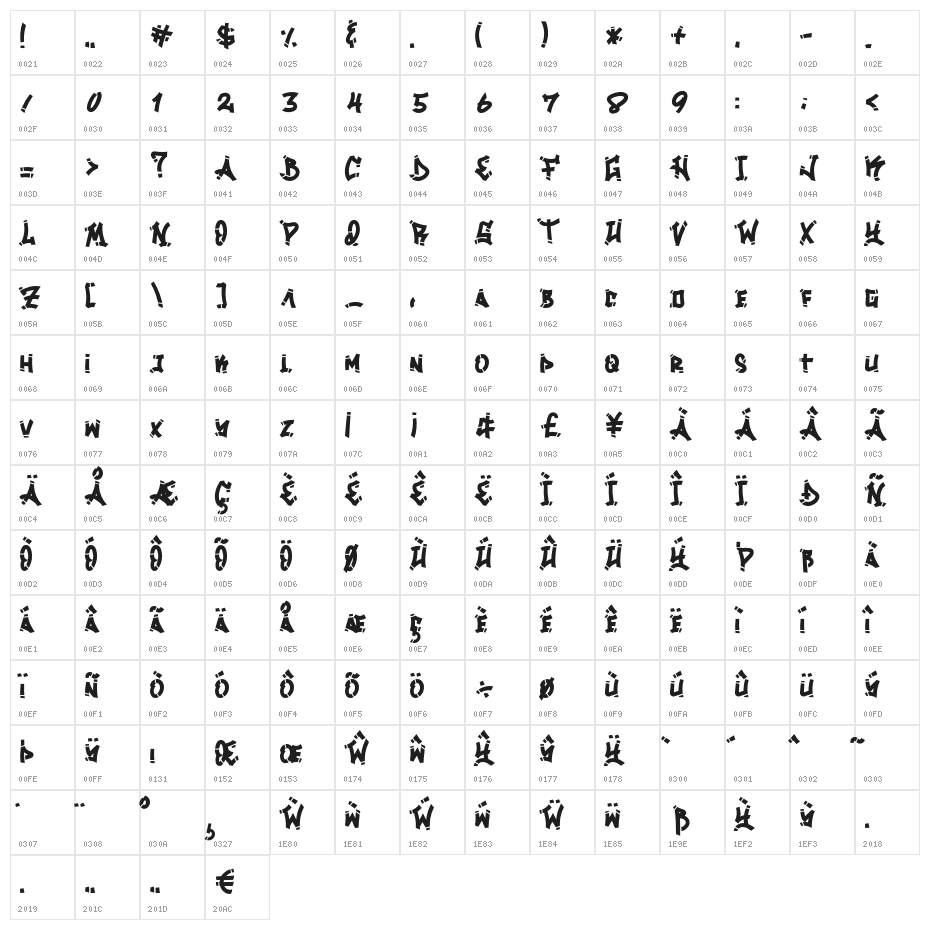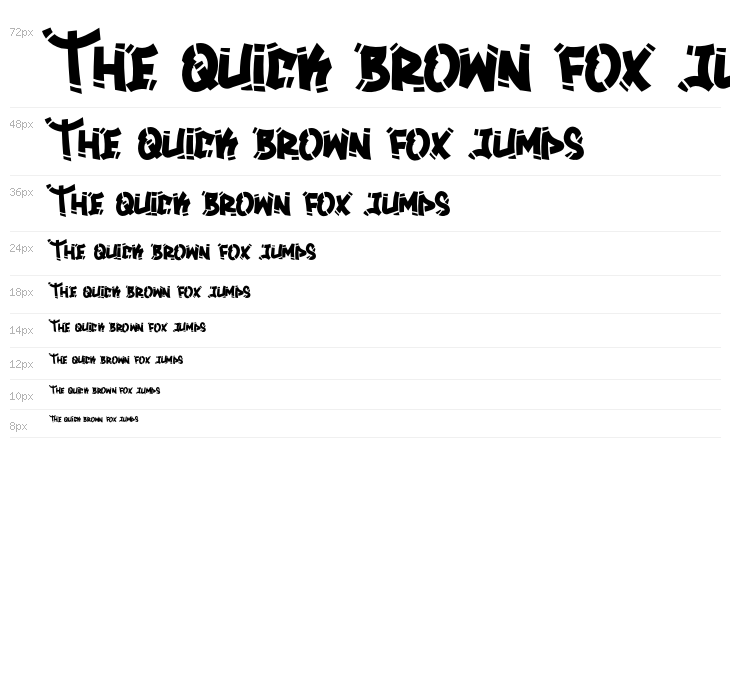
Losdol Font
Losdol Description
This font features a bold and edgy graffiti-inspired style with sharp angles and a dynamic, urban aesthetic. The characters are designed with a sense of movement and energy, incorporating jagged edges and irregular shapes that give it a rebellious and artistic flair. The uppercase and lowercase letters maintain a consistent style, while the numerals and special characters complement the overall design. This font is ideal for projects that require a bold statement and a modern, street-art vibe.
| Overall Style | Modern, Urban, Edgy |
| Proposed Projects | Perfect for street art designs, urban-themed posters, music album covers, and edgy branding projects. |